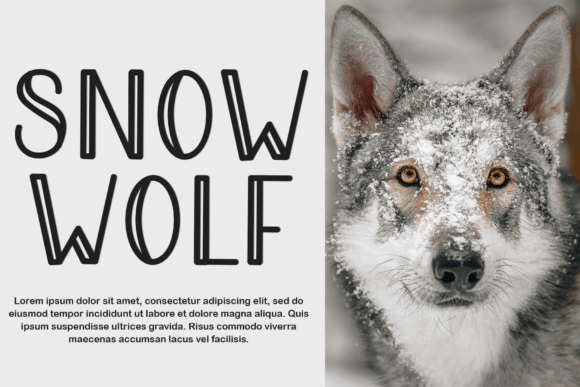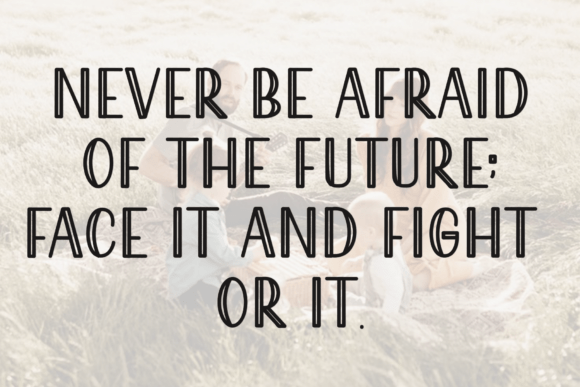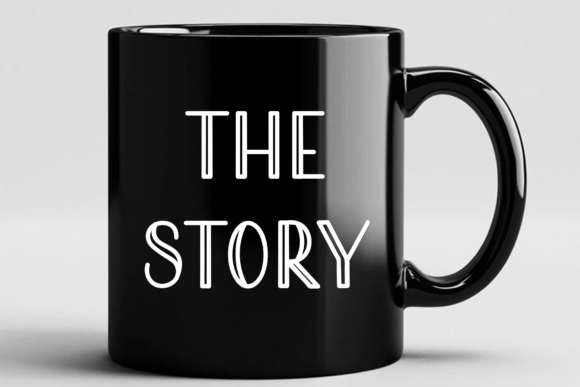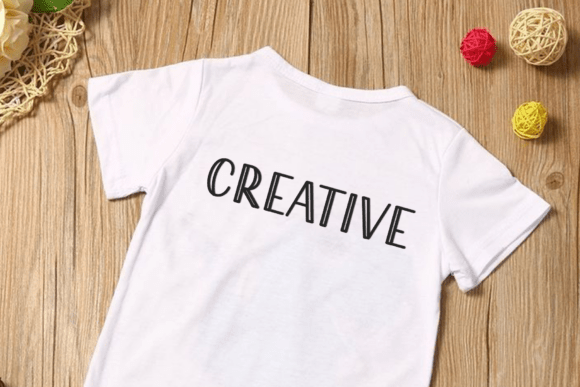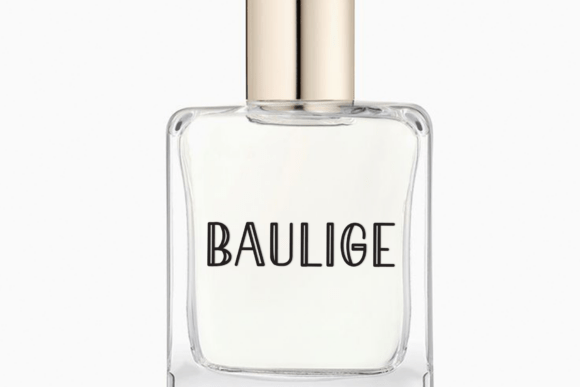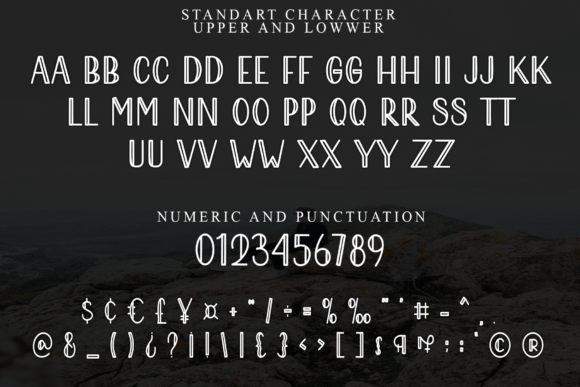
Introduction to Paper Line Font
Do you remember the thrill of creating a new project from scratch? The rush of ideas, the excitement of experimentation, and the satisfaction of bringing your vision to life? For designers, this feeling is a regular occurrence, and it’s what makes our profession so rewarding. Whether you’re working on a high-profile campaign or a personal creative project, having the right design resources can make all the difference.
That’s where Paper Line Font comes in – a sleek and authoritative display font that’s perfect for adding a touch of sophistication to your designs. With its unique inline aesthetic and integrated parallel line detail, this font is an ideal choice for educational branding, stationery design, architectural title blocks, and modern office-themed marketing materials.
Not only is Paper Line Font a high-quality design resource, but it’s also free to download, making it an accessible choice for designers of all levels. Whether you’re looking to add some visual depth to your designs or simply want a font that exudes confidence and authority, Paper Line Font is definitely worth exploring.
Key Features of Paper Line Font
- High-quality design resource with a unique, hand-drawn aesthetic, ideal for creative projects that require a personal touch.
- Includes a range of characters, including uppercase and lowercase letters, numbers, and punctuation marks, making it a versatile design resource.
Honest Review: Paper Line Font
As a designer, I’m always on the lookout for high-quality design resources to elevate my creative projects. Recently, I stumbled upon the Paper Line Font, and I’m excited to share my honest review with you.
What works well: ✨ The Paper Line Font is a beautiful, hand-drawn font that’s perfect for adding a touch of elegance to your designs. The high-quality vector graphics ensure crisp and clear typography, making it ideal for use in print and digital media. I also appreciate that the font comes with a transparent background, giving me flexibility to use it on any design surface.
What doesn’t work well: ⚠️ While the Paper Line Font is a great resource, I do wish it came with more language support. Currently, it only supports English and a few other languages, which may limit its use in multilingual projects.
Overall impression: I’m thoroughly impressed with the Paper Line Font. Its unique design and high-quality graphics make it a valuable addition to my design toolkit. With a free download option, it’s definitely worth checking out for your next creative project.
Paper Line Font
Paper Line Font is a high-quality design resource ideal for creative projects requiring a unique and elegant touch. With a transparent background, this font offers flexibility and versatility in its applications.
Paper Line Font is ideal for:
- Business cards and marketing materials.
- Editorial and publishing projects.